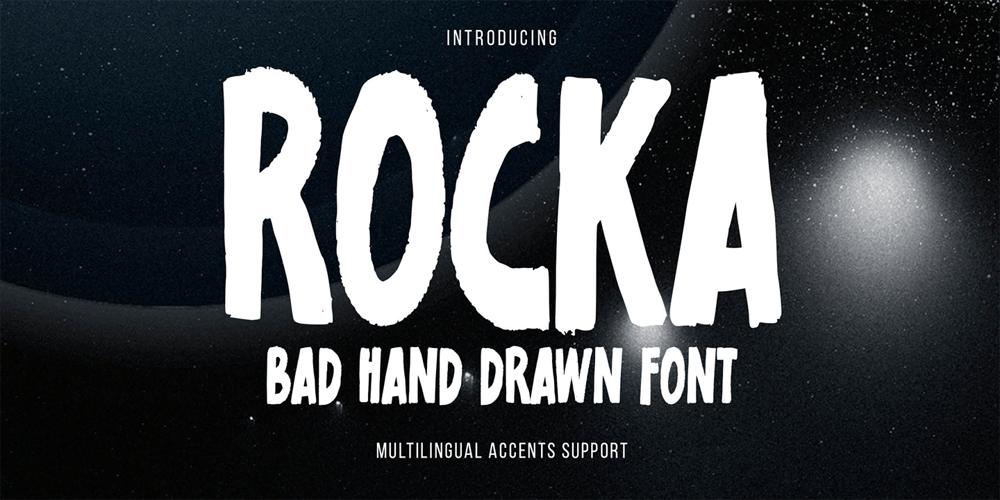
Rocka
Rocka font
Rocka Font Family was designed by Abdul Malik Wisnu, Anang Fibriyanto and published by Gassstype. Rocka contains 1 styles and family package options. Here comes a New font, Introducing ROCKA It’s Bad Hand Drawn Font is a Natural Brush Style and Authentic classy style, this font is great for your creative projects such as watermark on photography, and perfect for logos & branding, invitation,advertisements,product designs, stationery, wedding designs,label ,product packaging, special events or anything that need handwritting taste.ROCKA is a natural Hand Drawn feel. It is perfect for any design project as Invitation,logo, book cover, craft or any design purposes,photos, photography overlays, signs, window art, scrapbooking, tags and so much more!It is perfect for any design project as Invitation,logo, book cover, craft or any design purposes.